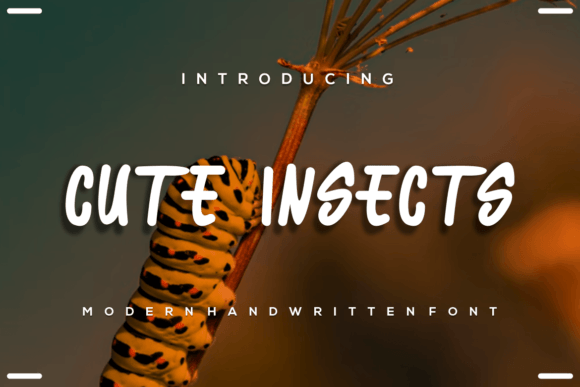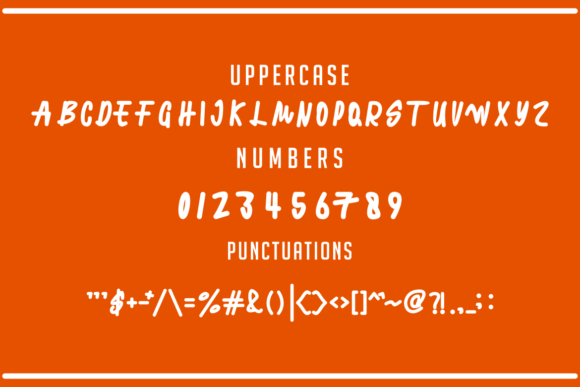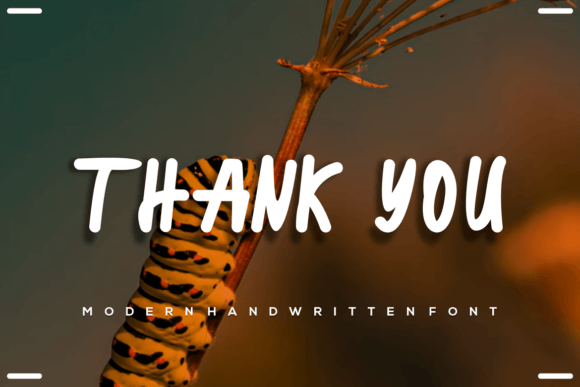
Cute Insects Font: Elevate Your Designs with a Modern Handwritten Style
Are you tired of using the same old fonts in your designs? Look no further than Cute Insects Font, a modern and trendy handwritten font that’s sure to elevate your creations. With its natural-handwriting vibe, this font is perfect for designers and crafters looking to add a personal touch to their work.
What is Cute Insects Font?
Cute Insects Font is a beautifully crafted handwritten font that’s designed to bring a touch of whimsy and charm to your designs. Its unique and modern style makes it perfect for a wide range of projects, from branding and advertising to packaging and digital media.
Key Features of Cute Insects Font
- Modern and trendy design: Cute Insects Font features a fresh and contemporary design that’s sure to make your designs stand out.
- Natural-handwriting vibe: This font has a warm and inviting feel that’s reminiscent of handwritten text.
- Highly versatile: Cute Insects Font can be used for a wide range of projects, from formal and professional to casual and playful.
- Easily readable: Despite its unique design, Cute Insects Font is highly legible, making it perfect for use in body text and headlines.
Why Use Cute Insects Font?
So why should you choose Cute Insects Font for your next project? Here are just a few reasons:
- Add a personal touch: With its handwritten design, Cute Insects Font is the perfect way to add a personal touch to your designs.
- Stand out from the crowd: This font’s unique design ensures that your creations will stand out from the crowd and grab attention.
- Perfect for crafty projects: Cute Insects Font is a great choice for crafty projects, such as DIY tutorials, crafting blogs, and handmade product labels.
- Great for branding and advertising: This font’s modern and trendy design makes it perfect for use in branding and advertising projects, such as logos, brochures, and social media graphics.
- Pair it with other fonts: Cute Insects Font pairs well with other fonts, such as sans-serif fonts and script fonts.
- Use it for headlines and body text: This font is highly legible, making it perfect for use in both headlines and body text.
- Experiment with colors and textures: Cute Insects Font looks great in a variety of colors and textures, so don’t be afraid to experiment and find the perfect combination for your design.
In conclusion, Cute Insects Font is a modern and trendy handwritten font that’s sure to elevate your designs. With its natural-handwriting vibe and highly versatile design, this font is perfect for a wide range of projects. Whether you’re a designer, crafter, or DIY enthusiast, Cute Insects Font is a great addition to your font library.